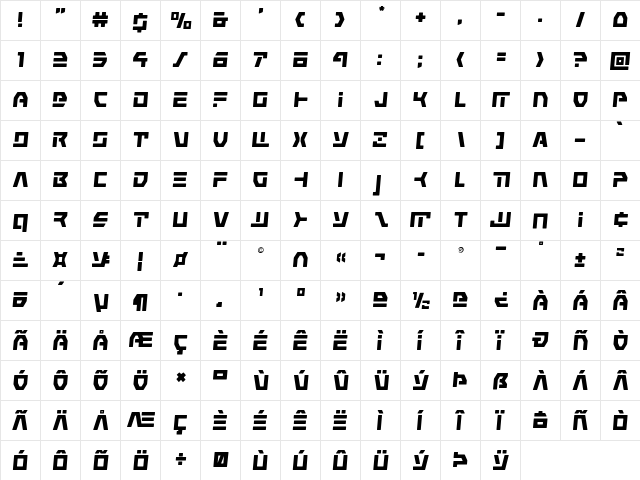
Command Override Semi-Italic Semi-Italic
Design Context for Command Override Semi-Italic Typeface
Command Override Semi-Italic is a composed and adaptable typeface that performs quietly and consistently across a wide range of design contexts. The dynamic lean of this cut emphasises speed and emphasis in any layout.
Pro Tip: Try Command Override Semi-Italic for annotation and caption copy alongside an upright companion — the contrast in angle creates a dynamic but ordered typographic system.